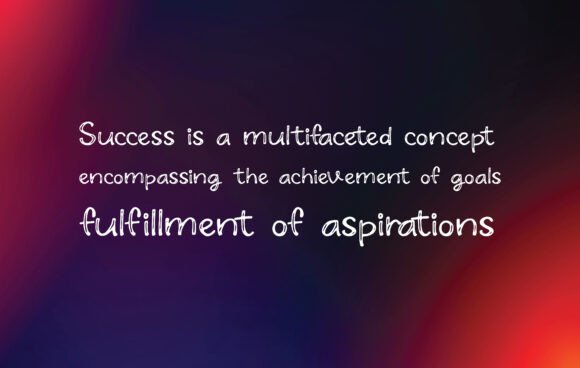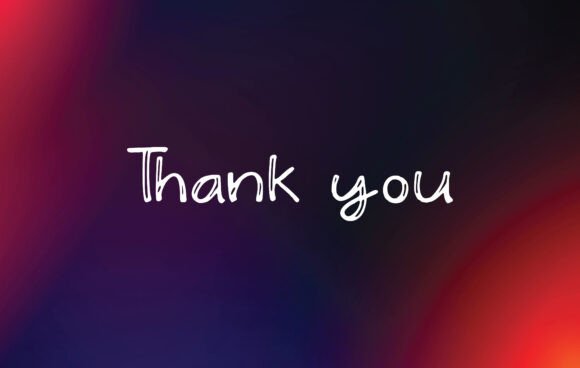
Unleash Your Creativity with the Beautiful Bromeliad Font
Have you ever felt that rush of excitement when your creative idea finally takes shape? The moment when everything falls into place, and you can’t wait to share it with the world? That’s exactly what I’m talking about. And, I’m about to share with you a secret that can take your creative ideas to the next level – the lovely and beautiful handwritten Bromeliad Font.
This stunning font is perfect for creating eye-catching logos, branding, and quotes that leave a lasting impression. As a designer, you’re always on the lookout for unique and versatile tools to elevate your work, and the Bromeliad Font is definitely a valuable addition to your arsenal. With its beautiful handwriting style, it’s sure to bring a personal touch to your designs and make them stand out from the crowd.
- Unique Characteristics: The font features a unique blend of modern and tropical elements, making it perfect for branding and design projects that require a touch of elegance and sophistication.
Bromeliad Font Review
As a designer, I’ve had the chance to work with a wide range of fonts, and Bromeliad is definitely a unique addition to the mix. Here’s my honest take on this font.
- Unique Character Set: Bromeliad has a distinct, hand-drawn feel that sets it apart from more common fonts.
- Expressive Variations: The font comes with a range of styles and weights, making it perfect for adding visual interest to designs.
- Legibility: Despite its quirky feel, Bromeliad is surprisingly easy to read, even at smaller font sizes.
- Limited Font Sizes: While the font is legible, it may not be the best choice for very large or very small font sizes.
- Lack of Universality: Bromeliad’s unique style may not be to everyone’s taste, and it may not be suitable for all design projects.
- Some Characters May Require Tweaking: A few of the characters in the font may require some adjustment to get them to look just right.
Bromeliad is a font that’s sure to spark creativity and add a touch of personality to designs. While it may not be the best choice for every project, it’s definitely worth considering for designs that need a little extra flair. With some careful use and adjustment, Bromeliad can be a real showstopper.
– Using it in combination with other elegant and modern fonts to create a sophisticated look.
– Using it in headings and titles to add a touch of sophistication.
– Using it in branding and marketing materials to create a consistent and recognizable look.
– Using it in digital design projects to add a touch of elegance and sophistication.